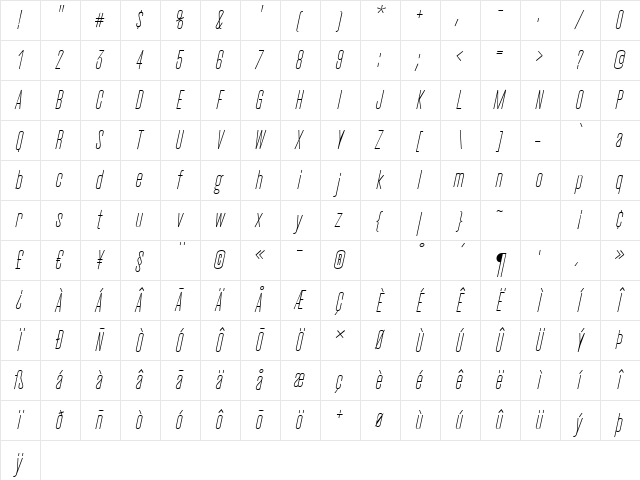
CactusLight Italic Free Font
CactusLight Italic
CactusLight Family
Design Context for CactusLight
CactusLight is a composed and adaptable typeface that performs quietly and consistently across a wide range of design contexts. The slanted form adds forward momentum and visual energy. Its slender proportions lend an understated elegance to any composition.